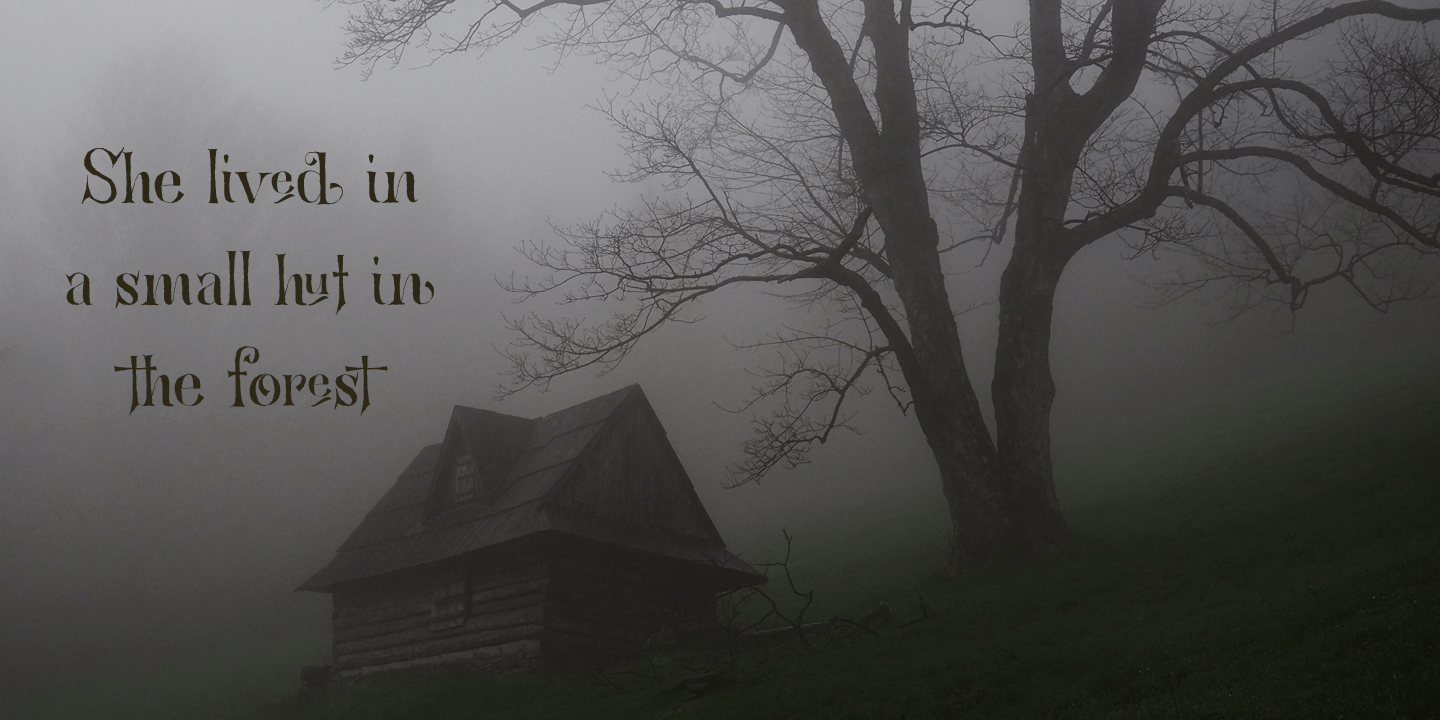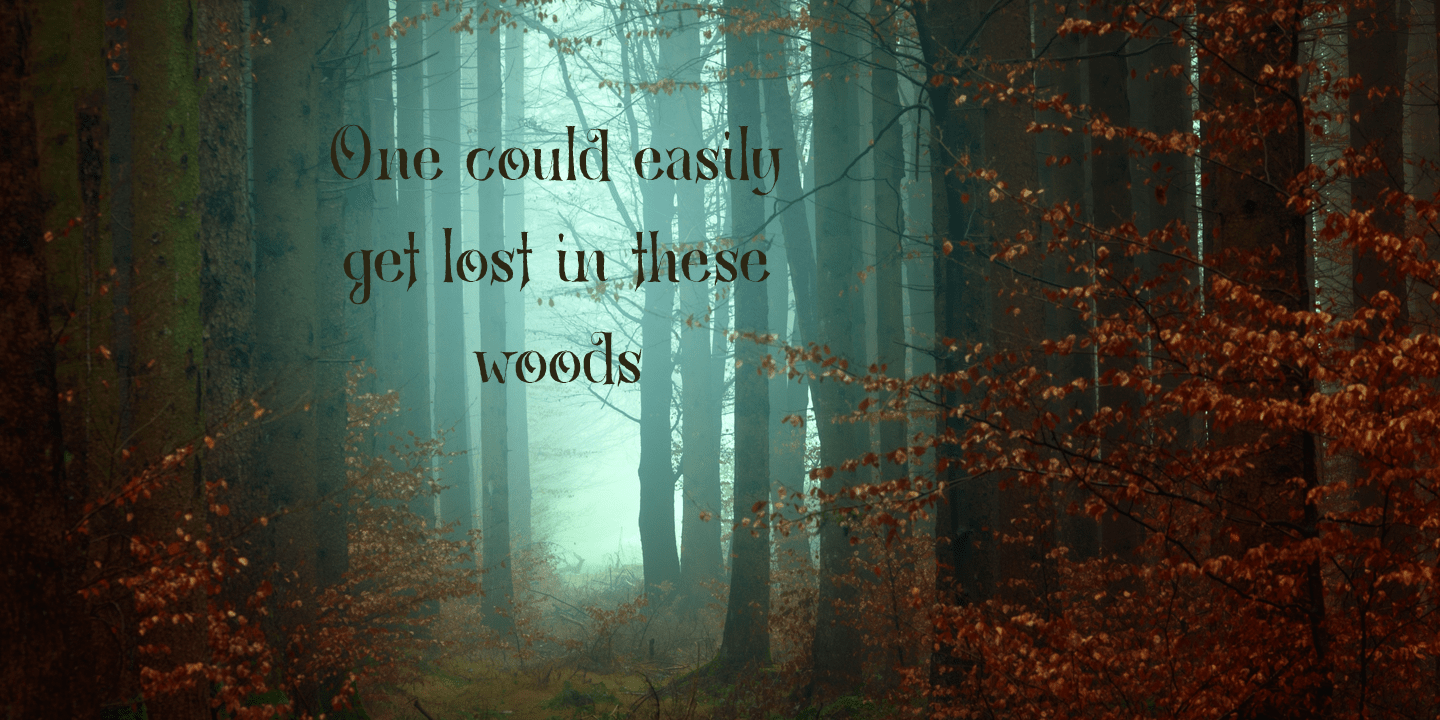
About Bronwen
In Welsh mythology, Bronwen was the daughter of Llyr, the god of the sea. It is a popular girls name in Wales and it apparently means ?white breast? or ?pure heart?. I really like this name and I think it fits the font. Bronwen is a fantasy font with…